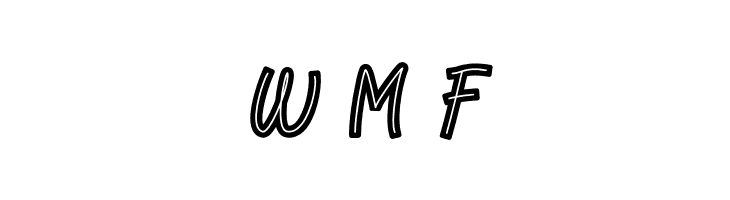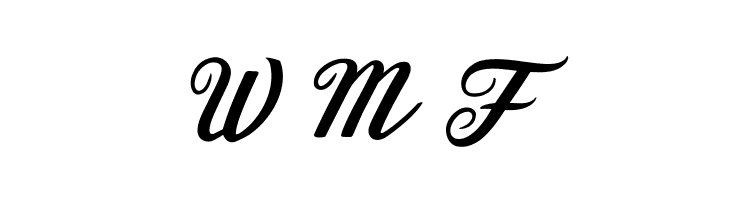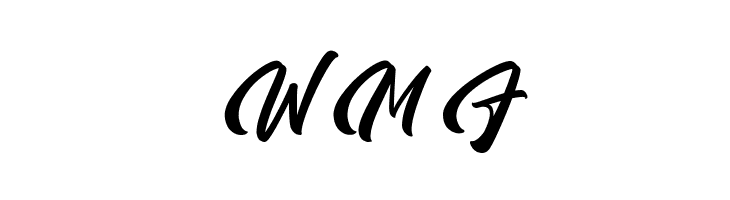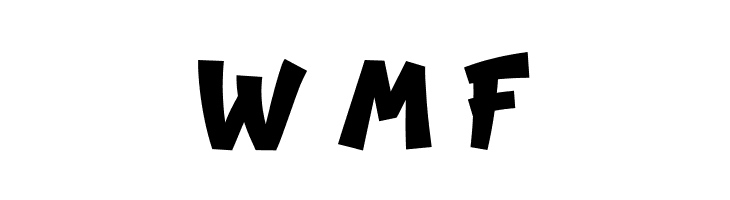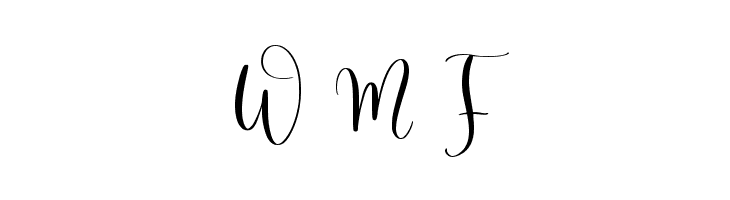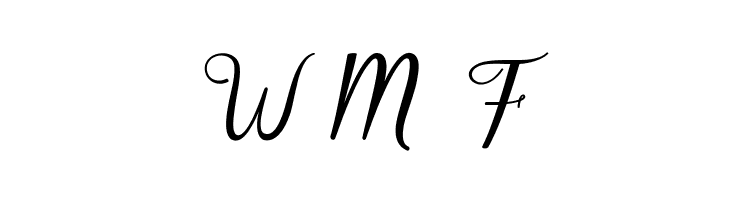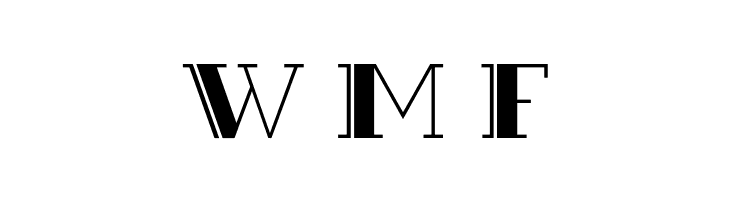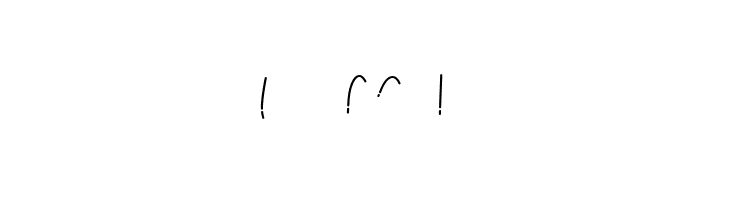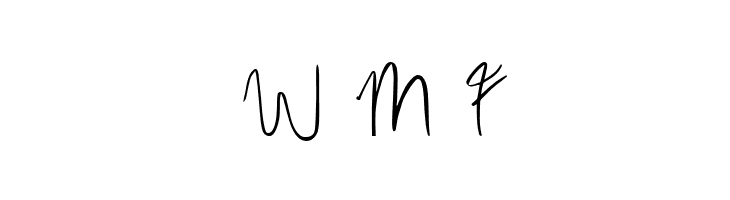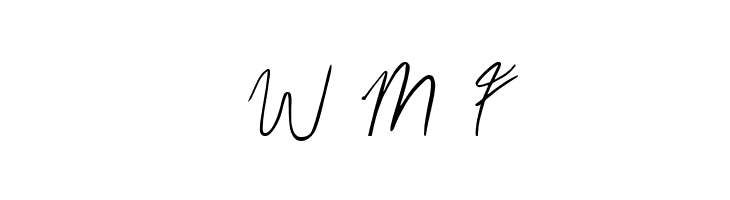
• Rhogsainel
A dynamic brush script font with bold, sweeping strokes and artistic flair.
• Rhombenk
A bold, handwritten font with fluid, slightly slanted letterforms and a playful style.
• Rhombic
A bold, geometric font with a dynamic zigzag pattern.
• Rhomelia Strip
A bold, hand-drawn font with outlined characters and a playful style.
• Rhonda
A sophisticated script font with flowing, elegant curves.
• Rhonde Free
An elegant script font with flowing, interconnected letters and elaborate swashes.
• rhosela
An elegant, flowing script font with modern, sophisticated curves.
• Rhoselinna
A cursive script font with elegant, flowing lines and connected characters.
• Rhoutte Ganol Demo Italic
Elegant cursive script with a handwritten style.
• Rhoutte Ganol Demo Regular
Casual handwritten script font.
• RhubarbPie
A playful, whimsical font with bold, curvy characters and decorative elements.
• Rhum Banane
A bold, playful font with rounded edges and a strong, friendly presence.
• Rhum Banane
A bold, playful font with rounded edges and a slightly condensed style.
• Rhum Banane_PersonalUseOnly
A bold, playful font with rounded edges and a whimsical style.
• Rhuma Sinera Inline.
An artistic inline font with a modern and abstract style.
• Rhuma Sinera Regular.
A playful, bold font with rounded, slightly irregular characters.
• Rhuma Sinera Shadow.
A bold, playful font with a distinctive shadow effect and cartoonish style.
• Rhumba Script NF
An elegant script font with flowing curves and decorative swashes.
• RhumbaScript
A graceful script font with elegant loops and swirls, perfect for sophisticated designs.
• RhumbaScriptNF
An elegant script font with flowing, cursive style and intricate loops.
• Rhune-Explorer